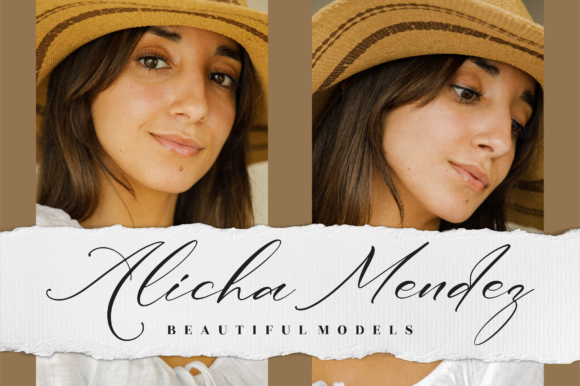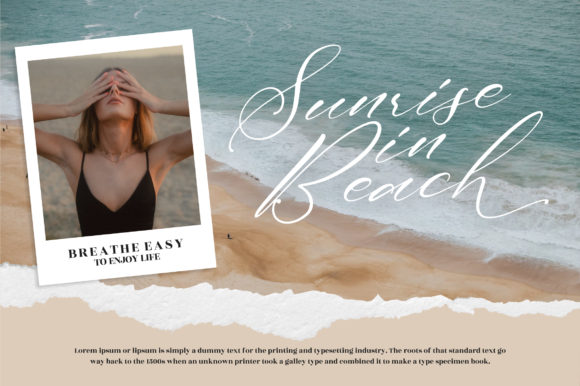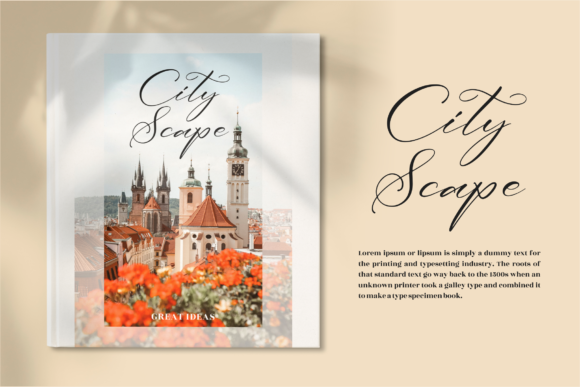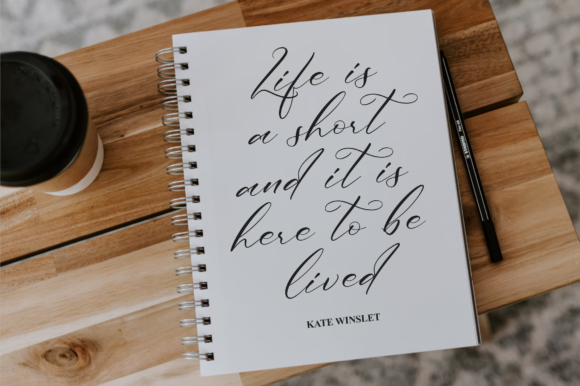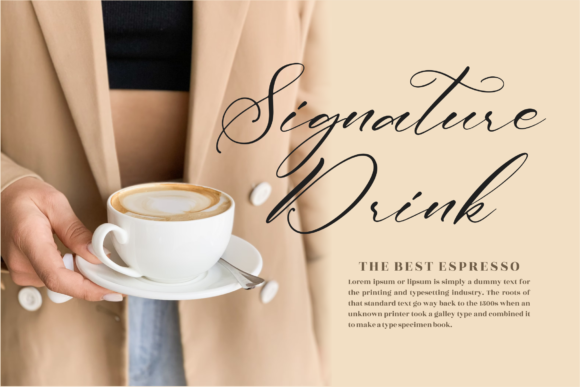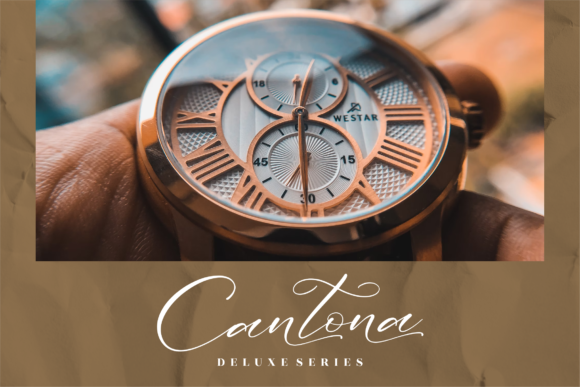
Introduction to Andalusia Felistica Font
Andalusia Felistica is a lovely and delicate script font that exudes elegance and class.
This font was particularly crafted for those who need a beautiful and refreshing look to their designs Andalusia Felistica is PUA encoded which means you can access all of the glyphs and swashes with ease.
Andalusia Felistica Font offers exceptional quality and versatility, making it a valuable addition to your design toolkit. Whether you’re creating for personal projects or commercial use, Andalusia Felistica Font delivers professional results.